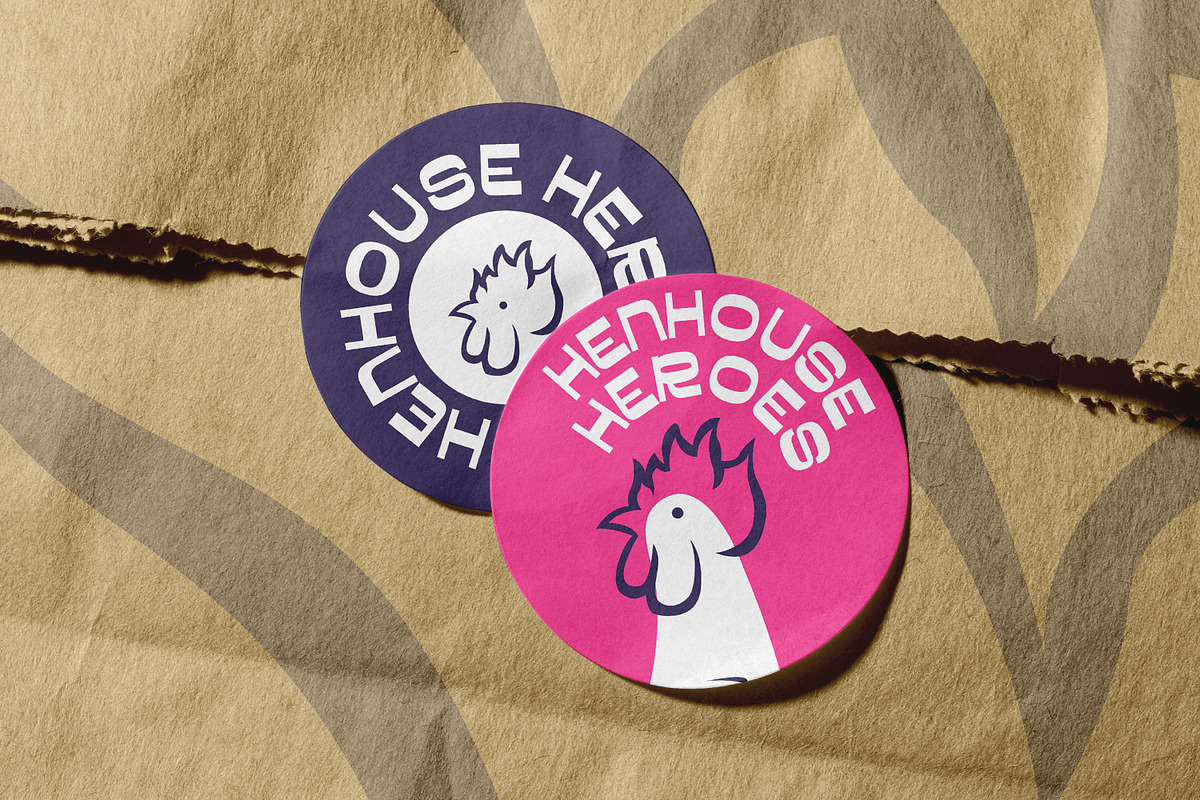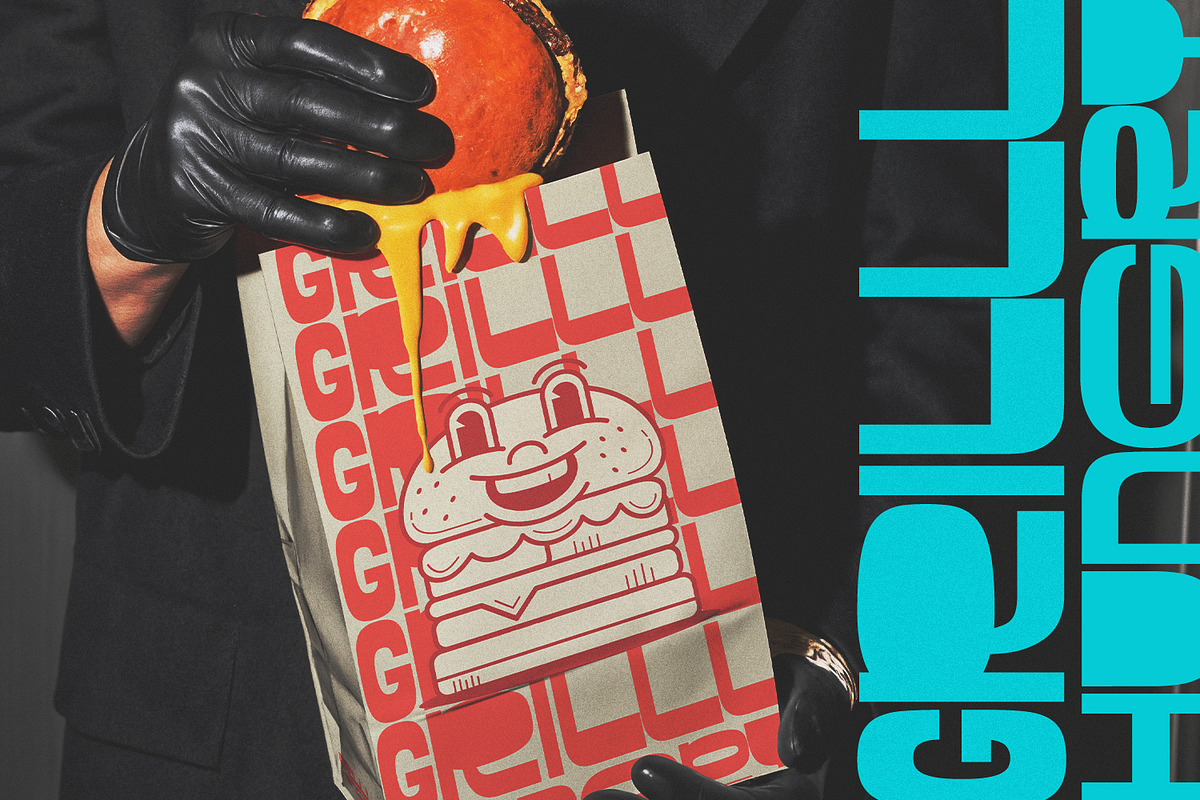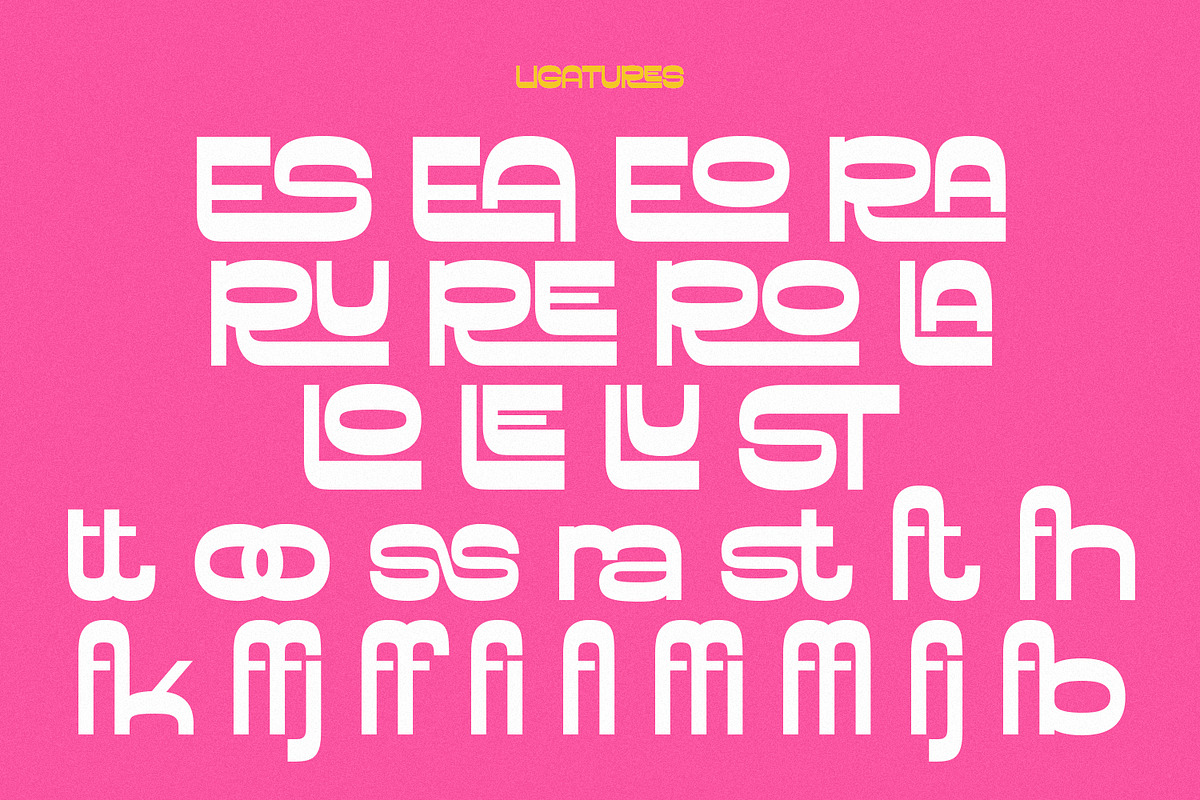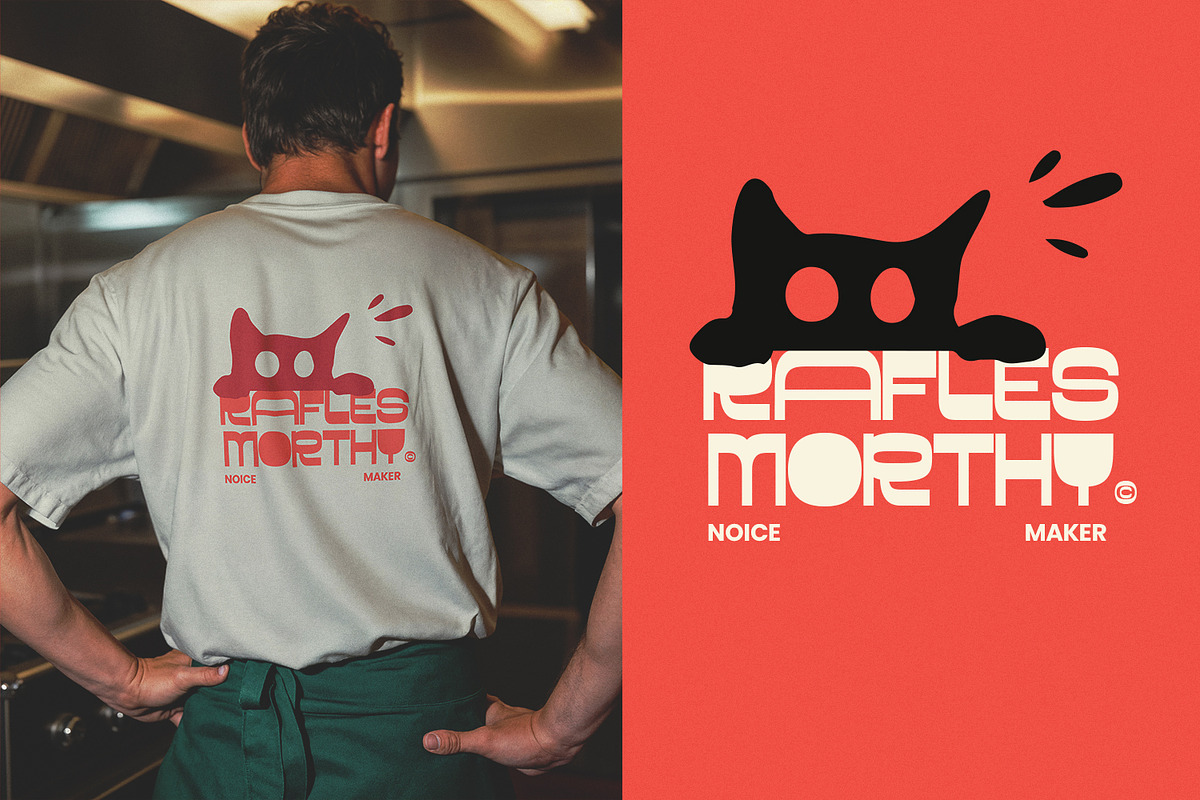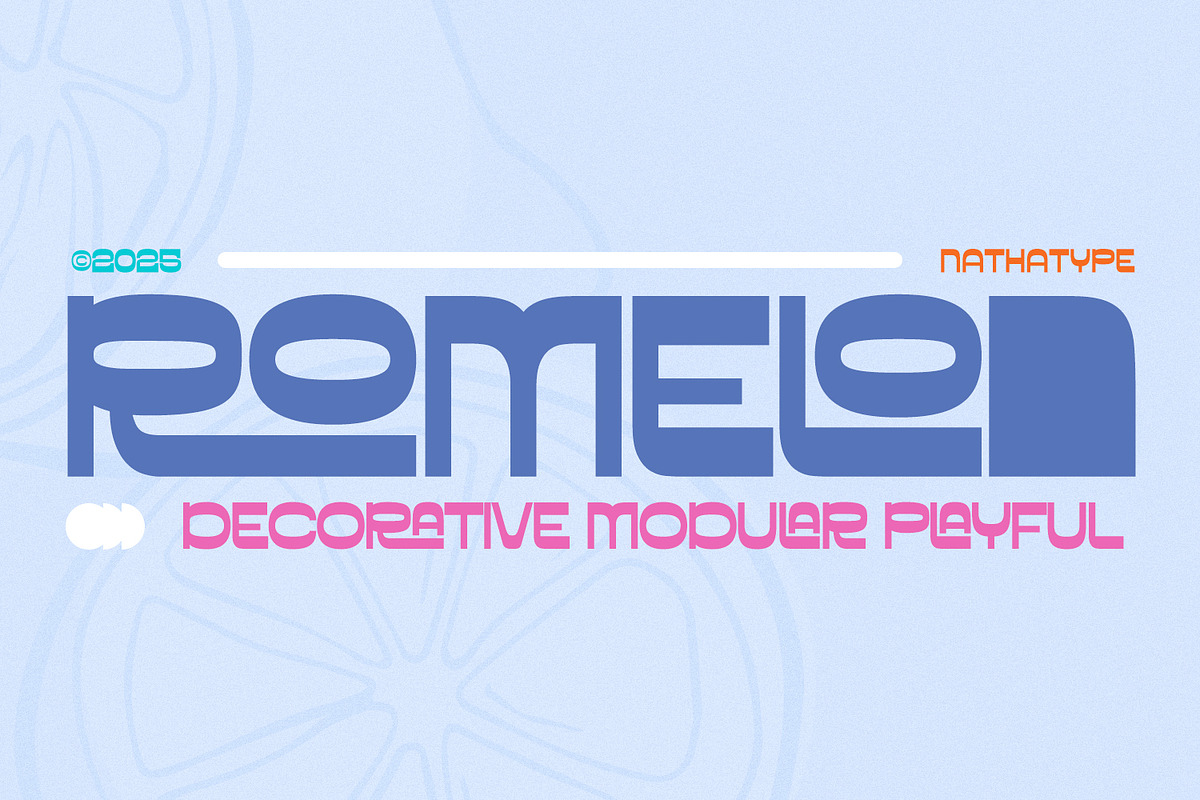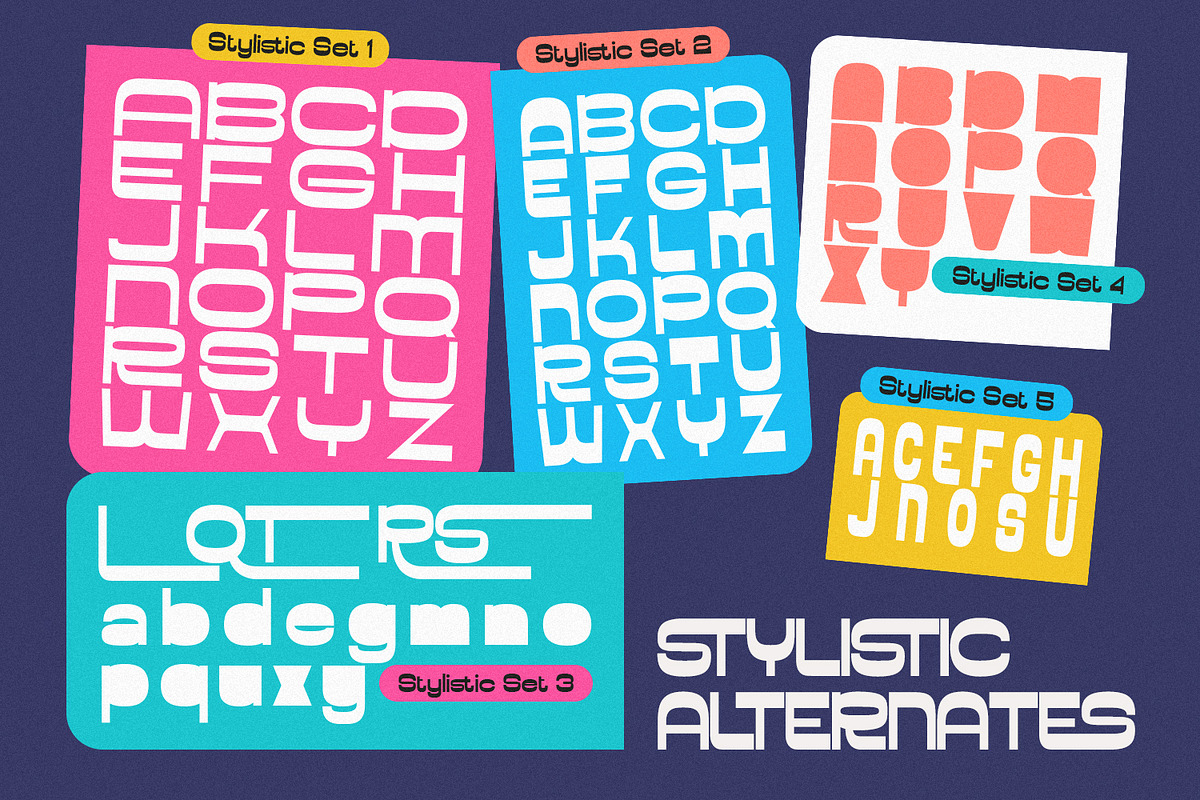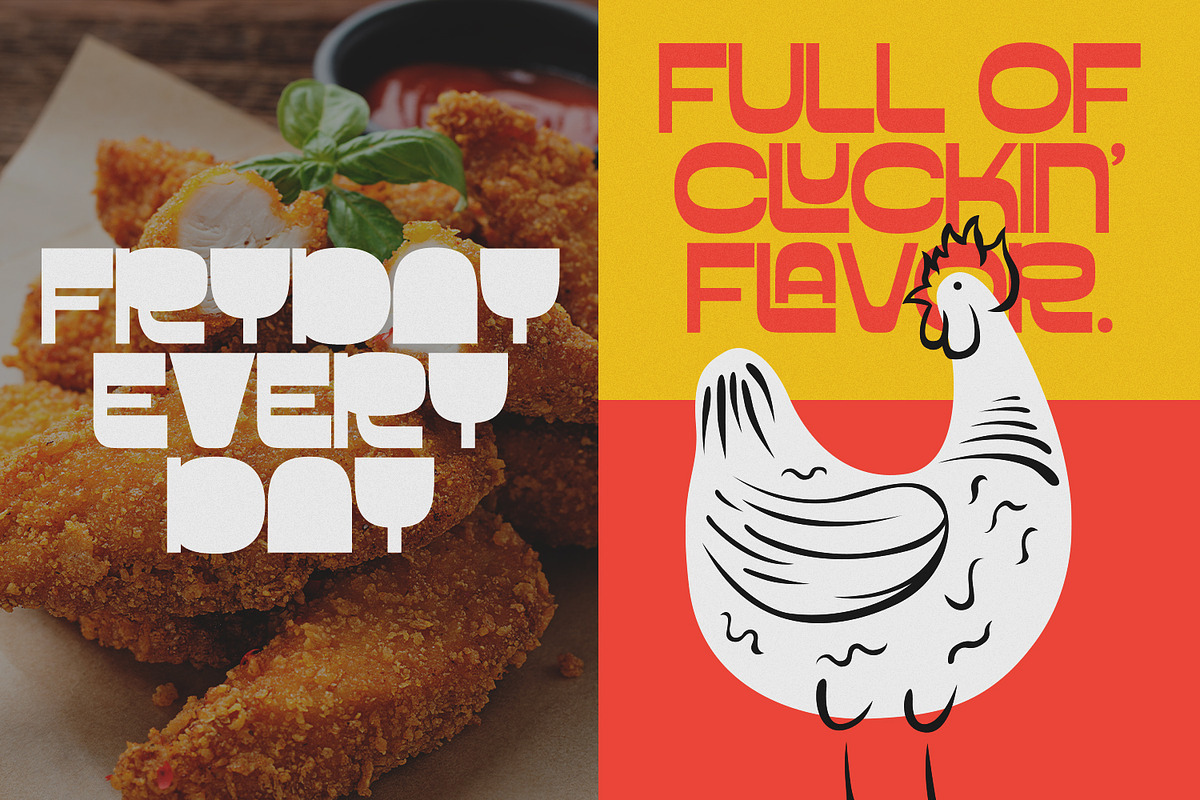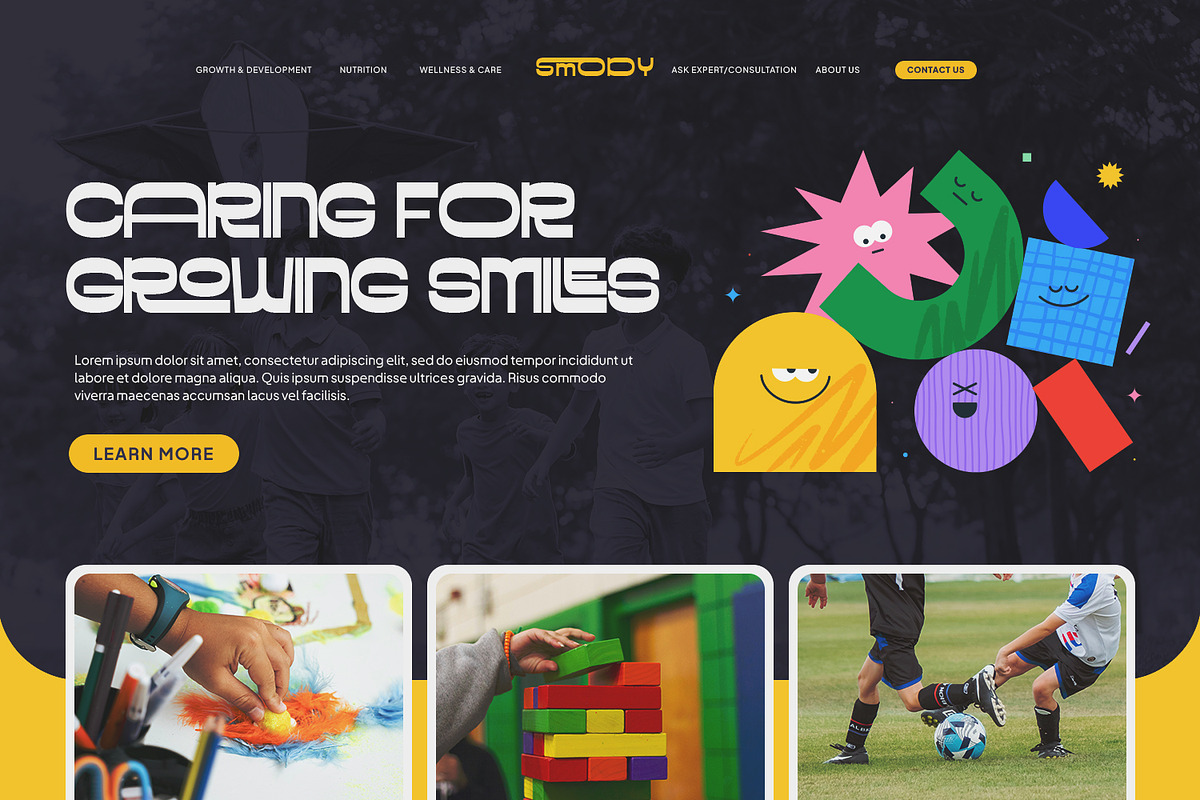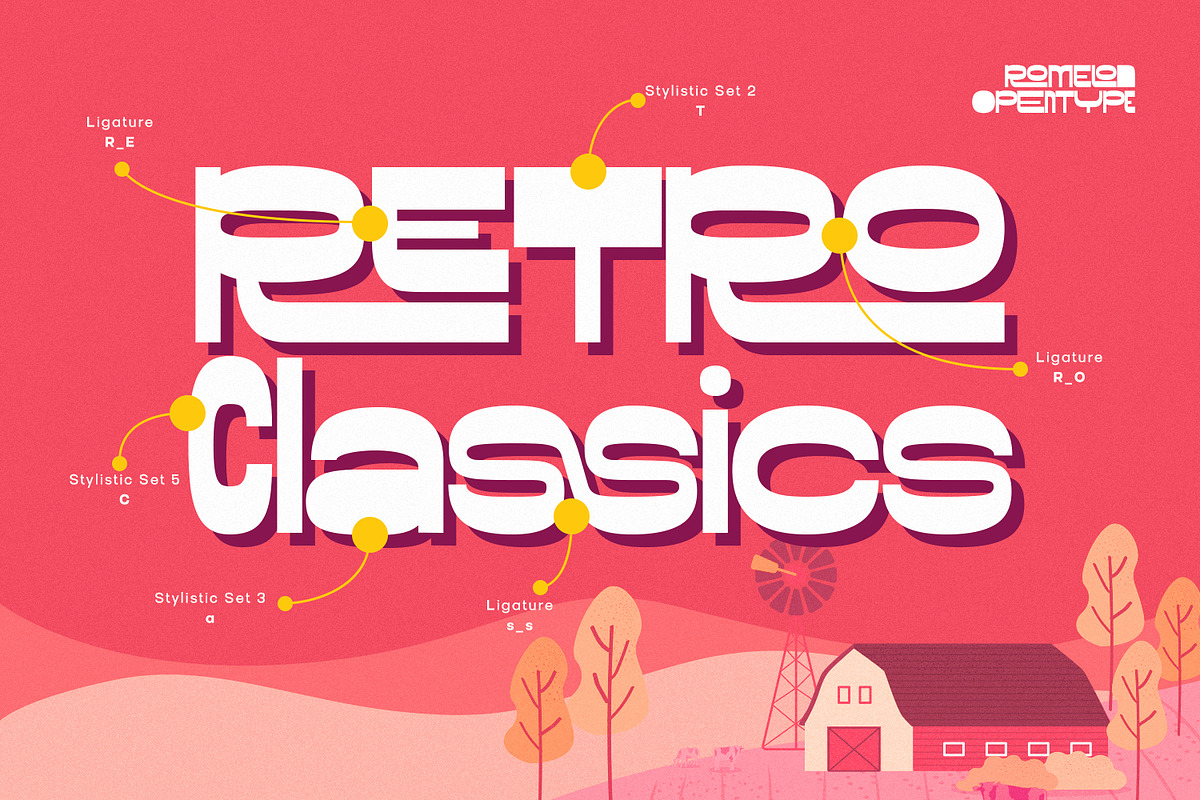
Romelon
Romelon is a bold and playful display font designed to bring fun, energy, and personality to your creative projects. With its rounded letter shapes and thick, Romelon delivers a friendly and approachable look that instantly grabs attention while maintaining a smooth, modern aesthetic. Despite its playful nature, Romelon retains a clean, professional design structure that ensures great readability in both print and digital formats.
- Stylistic Sets
Romelon fits in branding, packaging, quotes, invitations, logos, posters, and many more designs. Find out more ways to use this font by taking a look at the font preview.